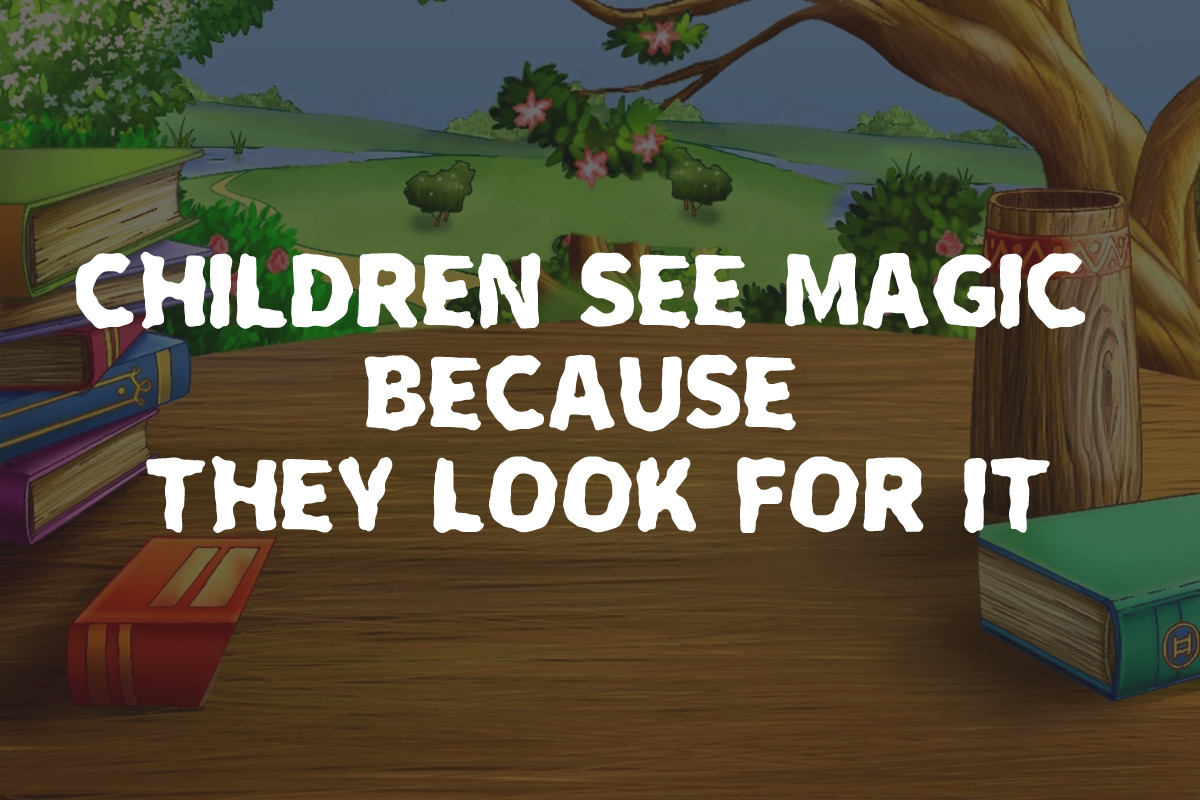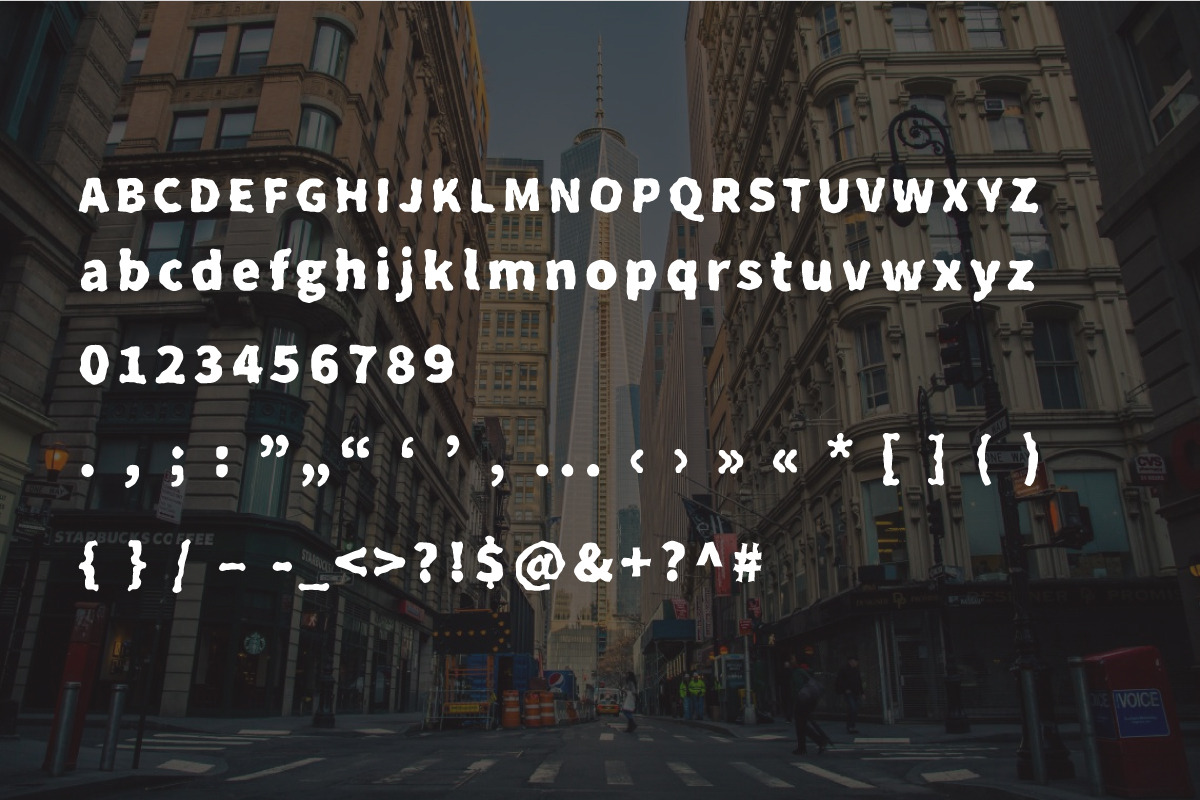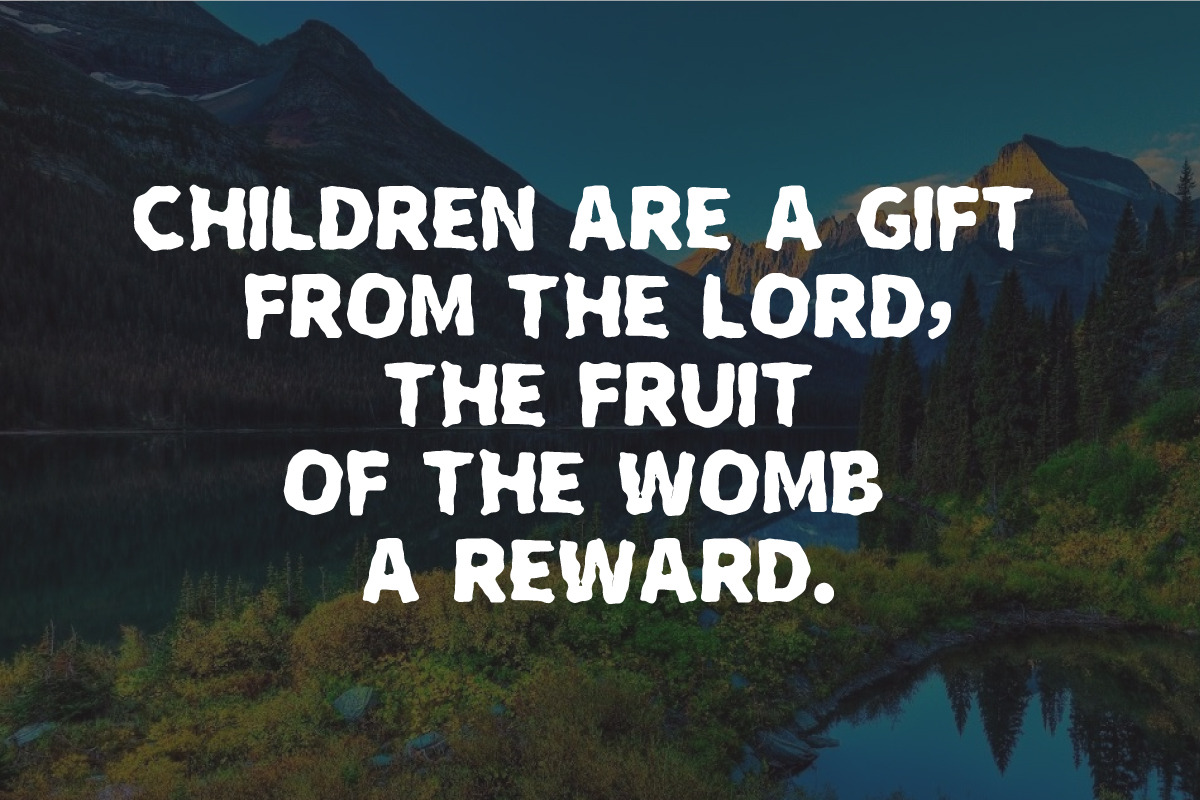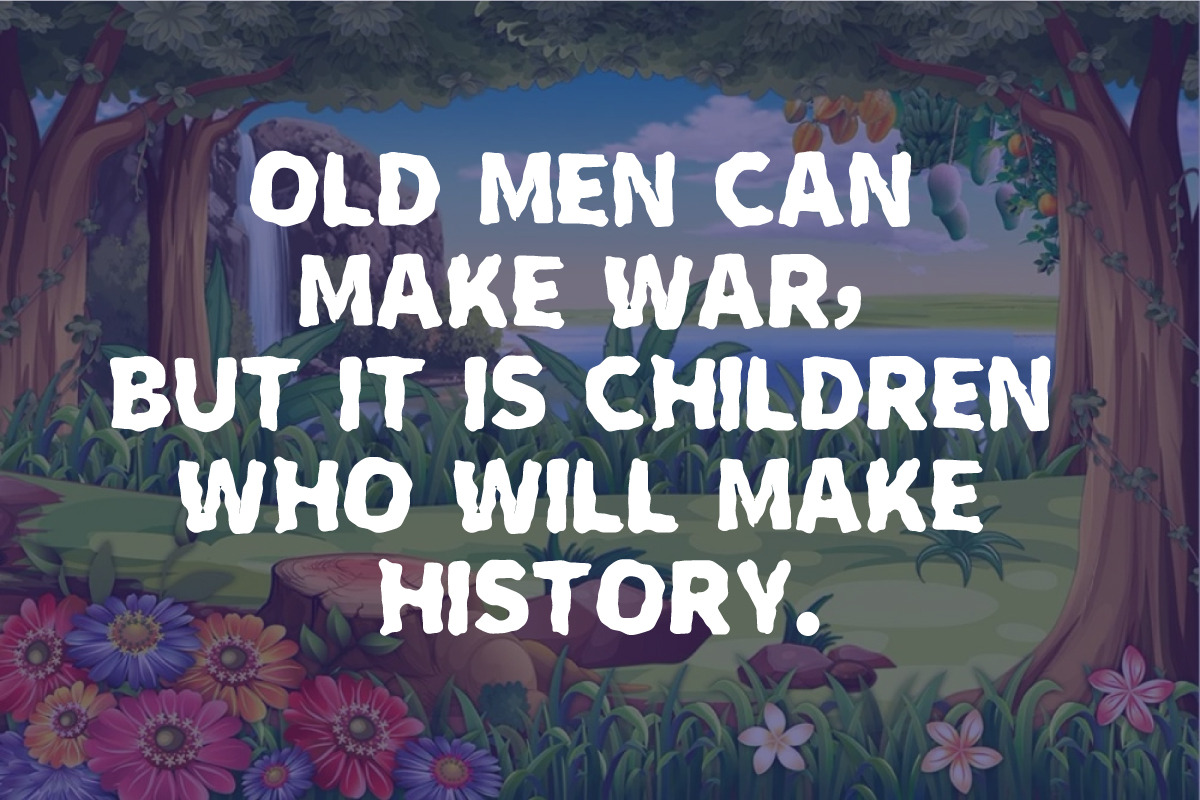
BUSKO
BUSKO is a Modern, bold, KIDS FONT & playful display font. This font is Looking Very Great on headlines, Packaging, Mininal Design, Poster, magazines, logos, street vibes,Sportwear,Textile Clothing branding and so much more